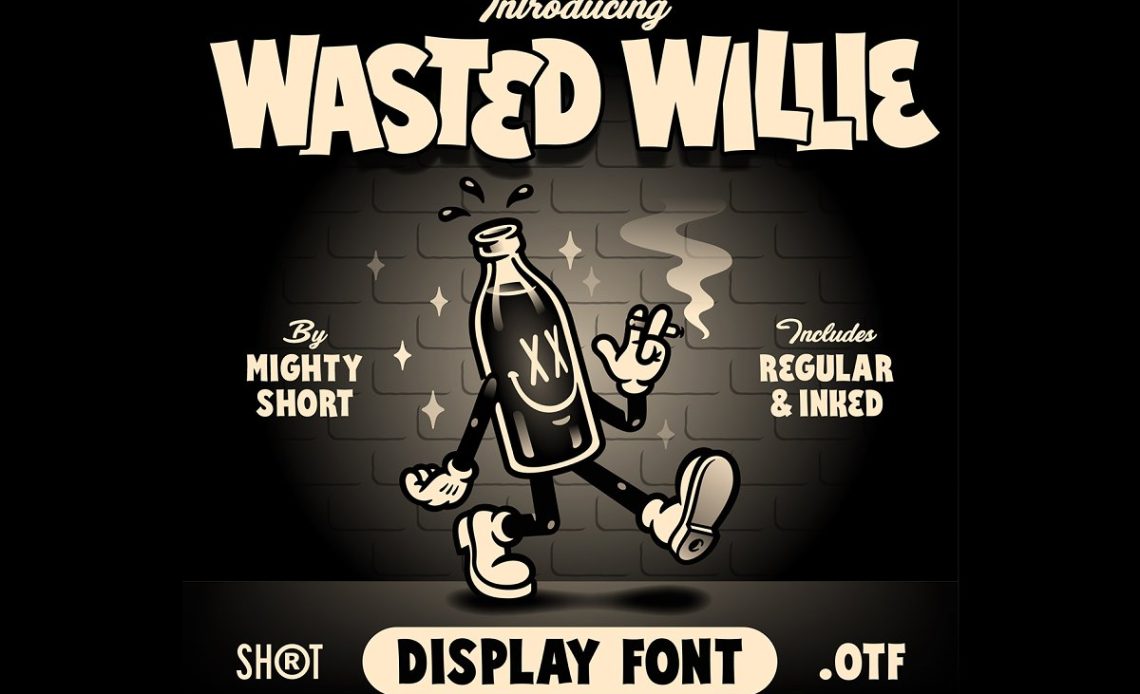
Introducing the Wasted Willie Font, the ultimate choice for all your cartoon font needs! Created by the talented Davy le Chevance, this sans serif font is here to revolutionize your designs and add a retro cartoon feel that will leave a lasting impression.
With its uppercase letters, numbers, and carefully crafted punctuation, the Wasted Willie Font offers endless possibilities for your tee-shirt designs, publications, web graphics, packaging, logos, and more. Embrace the power of this font and take your projects to new heights of creativity.
What sets the Wasted Willie Font apart is its versatility. It comes in two unique variations: the Regular and Inked versions. The Regular version boasts a clean and crisp aesthetic, perfect for adding a touch of playfulness to your designs. On the other hand, the Inked version adds a hand-drawn and slightly imperfect look, giving your artwork an authentic and artistic appeal.
But the magic doesn't stop there. The Wasted Willie Font is not just visually appealing; it also evokes emotions and creates a connection with your audience. Its nostalgic charm instantly transports viewers back to the golden age of cartoons, eliciting feelings of joy, excitement, and a touch of whimsy. Whether you're targeting children, adults, or anyone in between, this font is sure to captivate and engage.